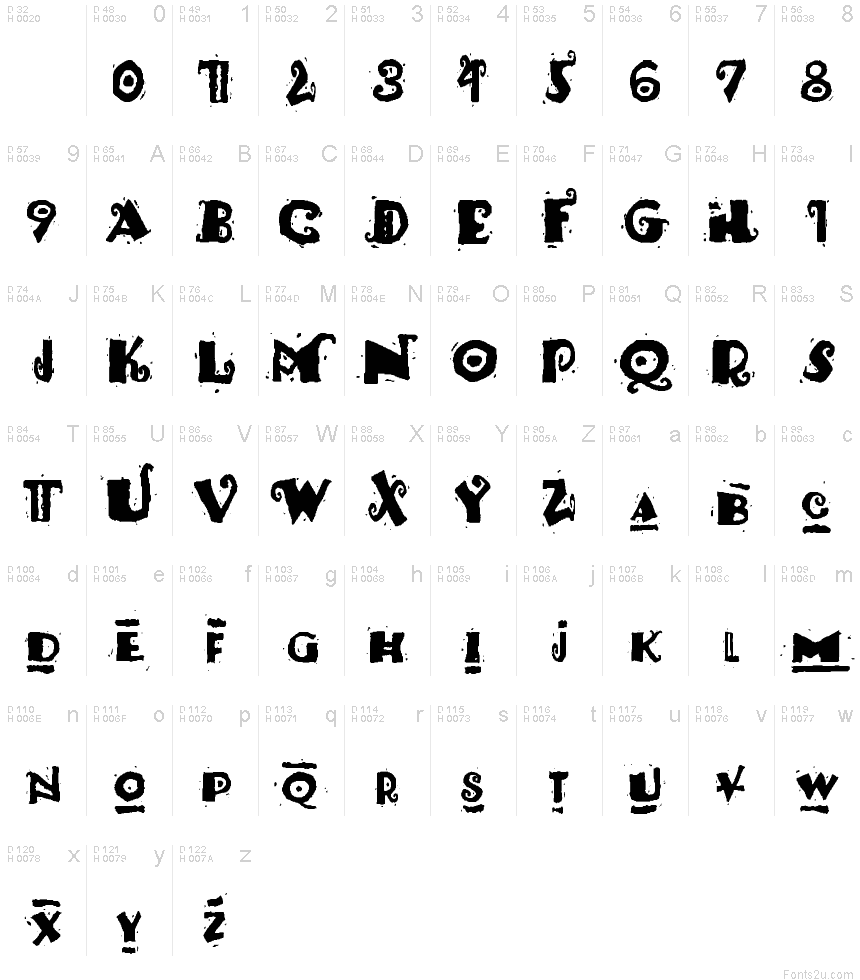
Pauls South Pacific is a free distressed decorative display font with broad, uneven letters and a roughly cut silhouette. Deep chips and broken edges interrupt the dense shapes throughout. Rounded forms mix with sharp notches and occasional curled details.
Concert posters are its strongest setting for punk, garage, or festival artwork. The same battered texture suits album covers, skate merchandise, and horror-game graphics. In food and drink branding, it can turn packaging into a roughly carved emblem.